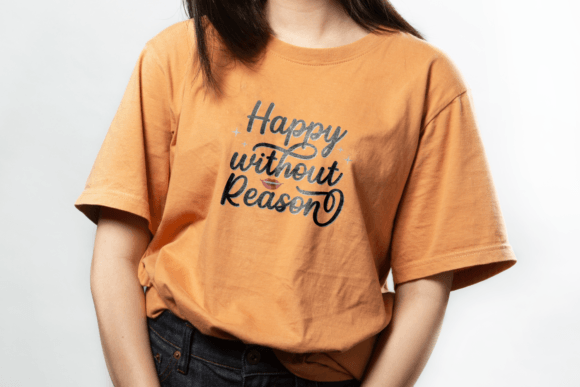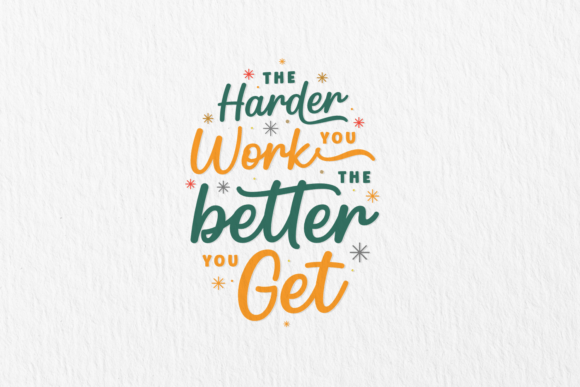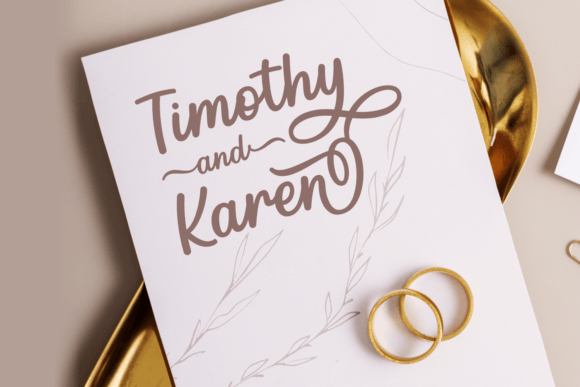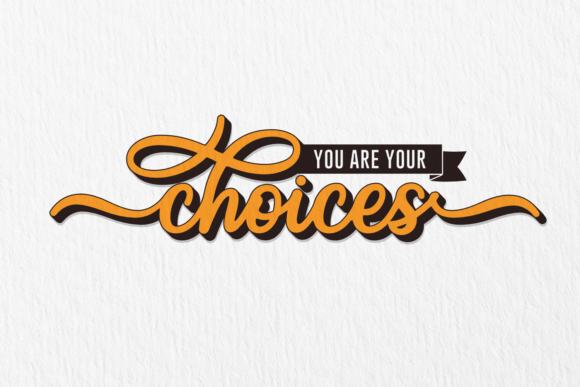
There’s nothing quite like the feeling of being in a quaint, vintage-inspired bookstore, surrounded by the musty smell of old books and the soft glow of string lights. You stumble upon a beautiful, handwritten font on a vintage postcard, and suddenly, a spark of creativity ignites within you. You can’t help but imagine the countless ways you could use that font to bring your design ideas to life.
Enter the Beautiful Regina Font, a sweet and cursive handwritten font that’s sure to add a touch of elegance and romance to your projects. Whether you’re a designer looking for the perfect font to elevate your branding or a crafter seeking a unique touch for your wedding invitations, the Beautiful Regina Font is the perfect choice. With its PUA encoding, you’ll have access to all the amazing glyphs and ligatures you need to create truly stunning designs.
This font is a valuable addition to any designer’s toolkit, offering a level of flexibility and creativity that’s hard to find in other fonts. With the Beautiful Regina Font, the possibilities are endless, and the results are sure to be nothing short of beautiful.
- Unique Characteristics: Hand-drawn design with elegant, cursive script and intricate details
Designer Review: Beautiful Regina Font
When I first laid eyes on the Beautiful Regina Font, I was immediately drawn in by its elegant and sophisticated design. ✨ The font’s delicate curves and subtle flourishes give it a touch of classic sophistication that’s perfect for luxury brands or high-end products.
Here are some of the things that really stand out to me:
- ✨ Beautifully nuanced letterforms that create a sense of depth and dimension
- ✨ Elegant connection between letters, creating a smooth and cohesive reading experience
- ✨ Highly versatile, suitable for a wide range of applications, from body text to display headings
However, as with any font, there are some limitations to consider:
- ⚠️ May not be suitable for digital displays or mobile devices, as some letterforms can appear pixelated or distorted
- ⚠️ Limited to a single style, which may limit its use in certain applications or projects
Overall, I’m really impressed with the Beautiful Regina Font. While it may have some limitations, its elegant design and versatility make it a great choice for designers looking to add a touch of sophistication to their projects.
The Beautiful Regina Font is ideal for:
- Wedding invitations